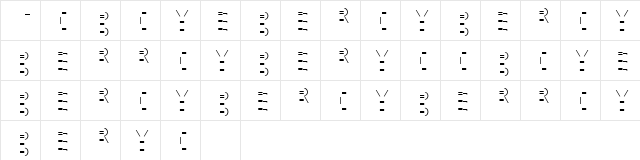
Complete MMMteurs Cyber Regular glyph index. Displaying only characters natively supported by MMMteurs Cyber Regular font.
MMMteurs Cyber has a distinctly futuristic character, with geometric precision and clean angles that feel at home in technology, gaming, and sci-fi contexts.